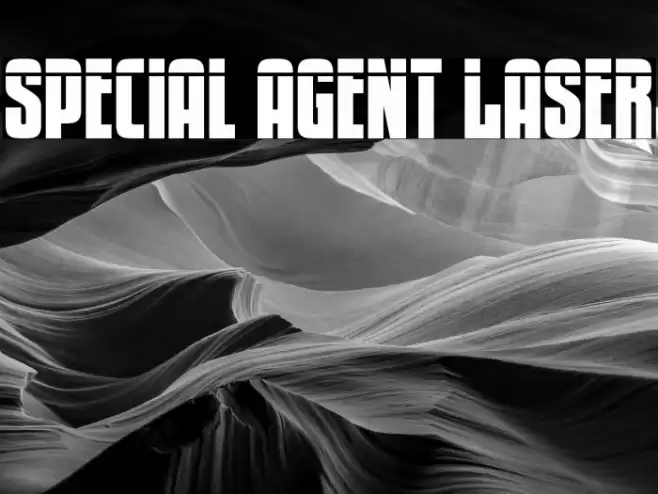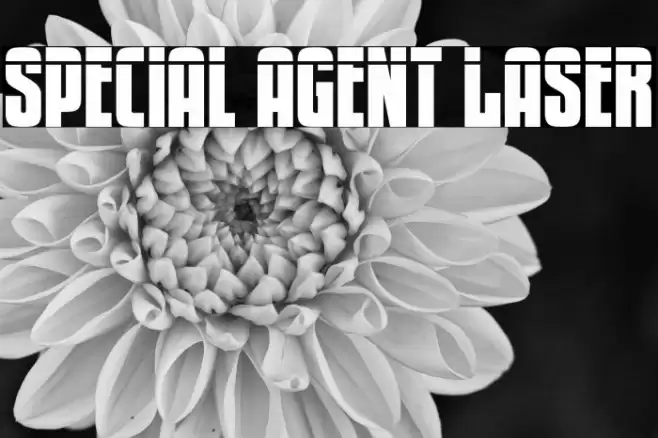
Special Agent Laser Font
Special Agent Laser Description
This font features a bold, geometric design with a strong presence. The characters are blocky and wide, with a futuristic and industrial feel. The uppercase letters are uniform in height, creating a cohesive look. The numerals and special characters maintain the same boldness, ensuring consistency across all glyphs. The font's design is reminiscent of stencil or military styles, with sharp angles and clean lines that convey strength and authority. It's highly legible and makes a striking impact, suitable for attention-grabbing designs.
A bold, geometric font with a futuristic and industrial style from Uncategorized fonts.
- Proposed Projects: Ideal for posters, logos, branding, and any design requiring a strong, impactful typeface.